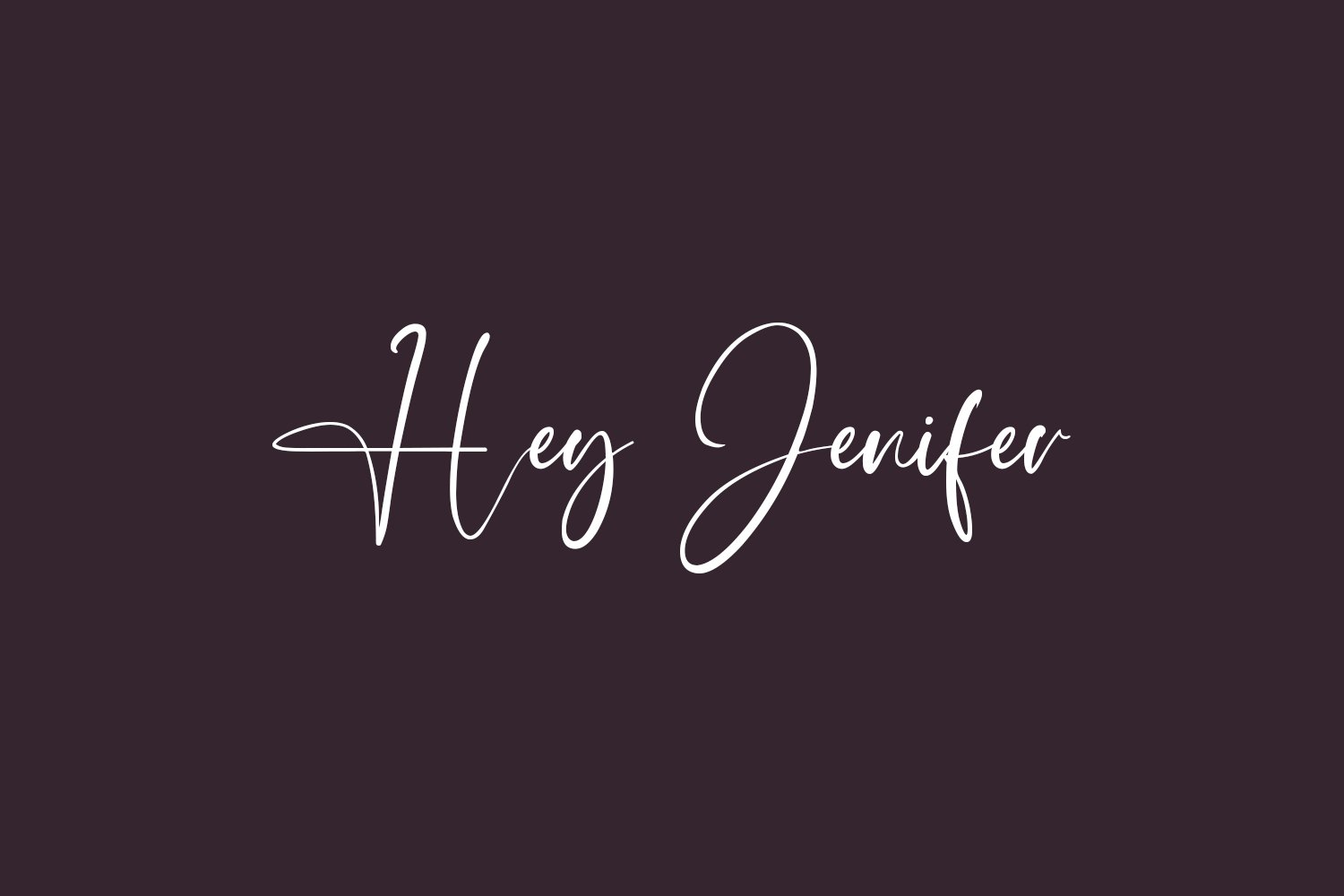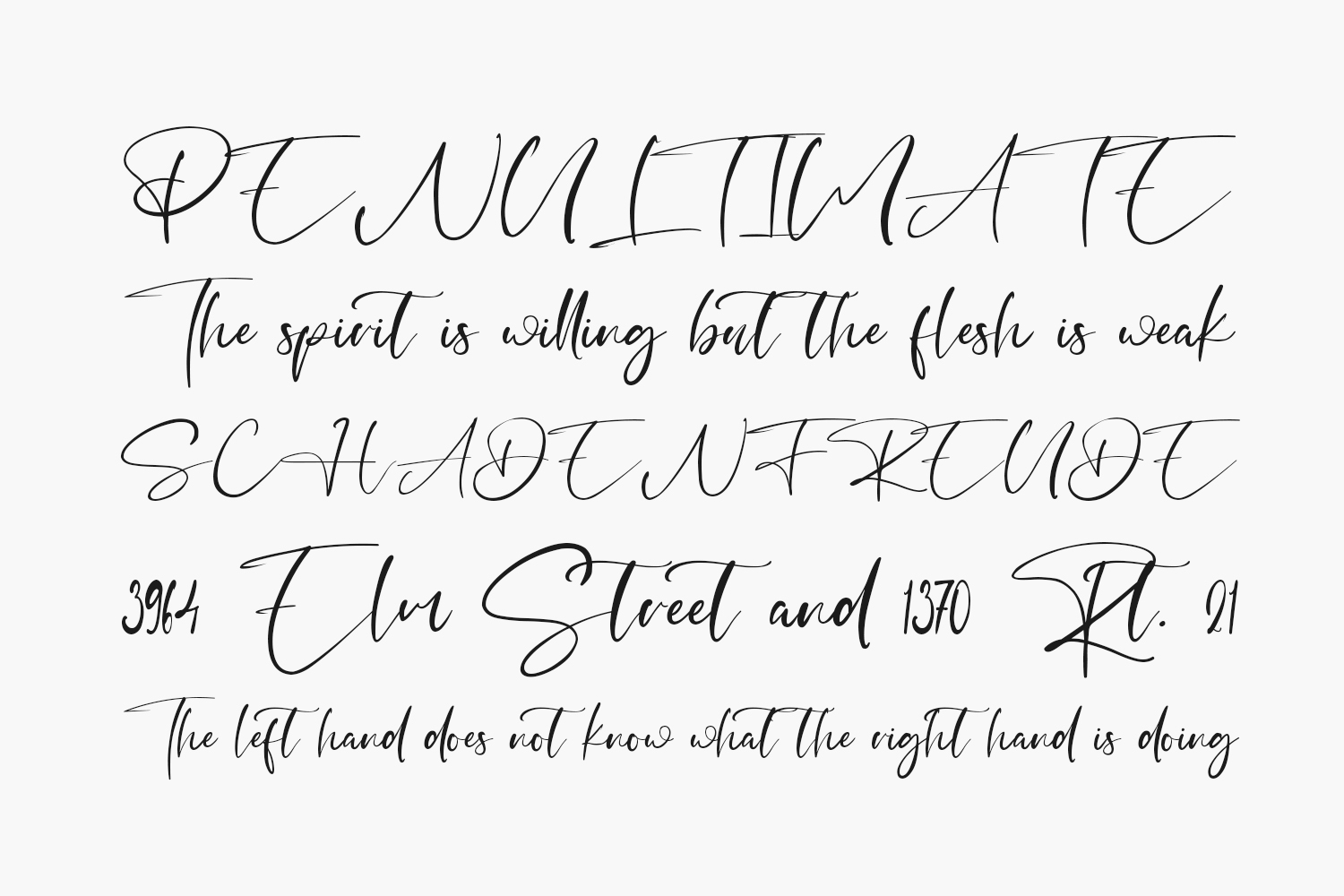
Hey Jenifer Free Font is a modern handwritten script font. It’s great for crafters and designers. Hey Jenifer Free Font was designed by Kong Font and is free for personal use only. Please purchase the full version for commercial use.